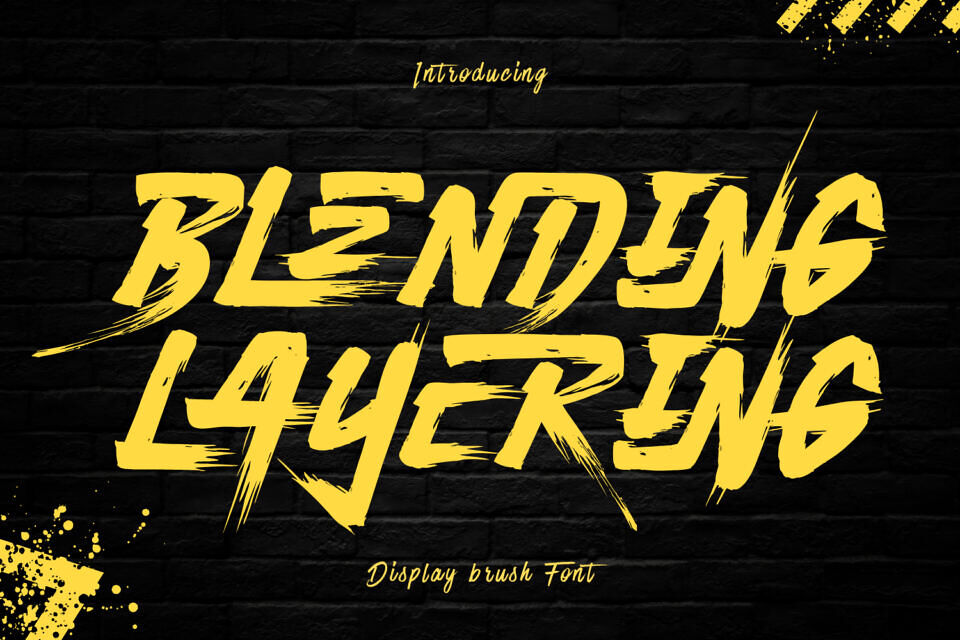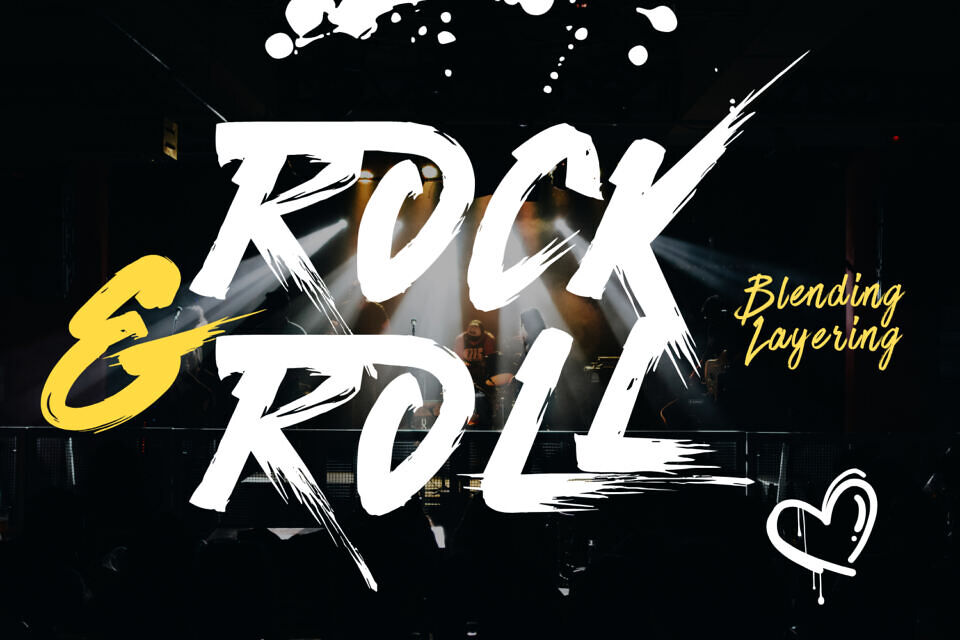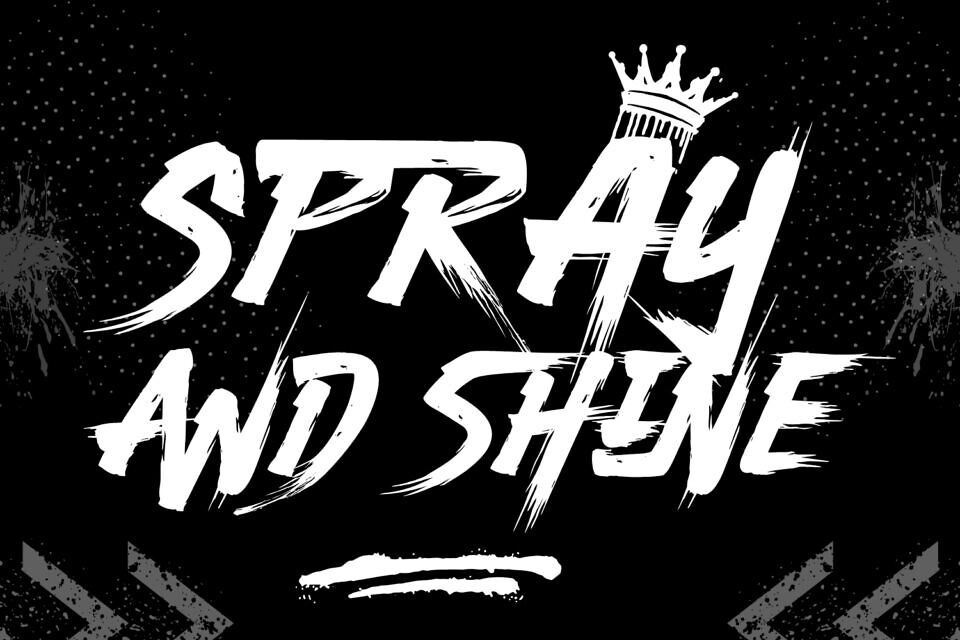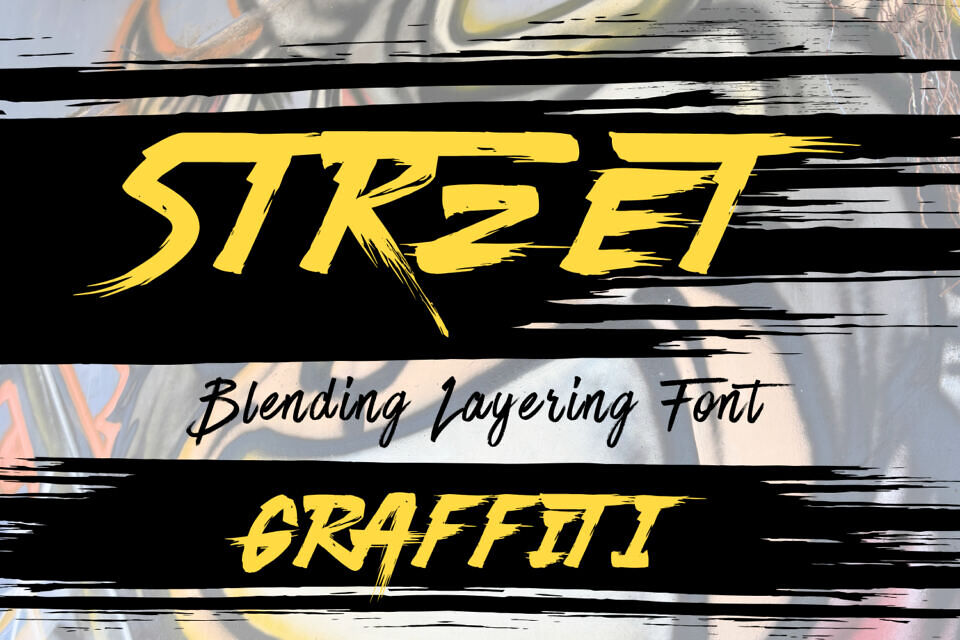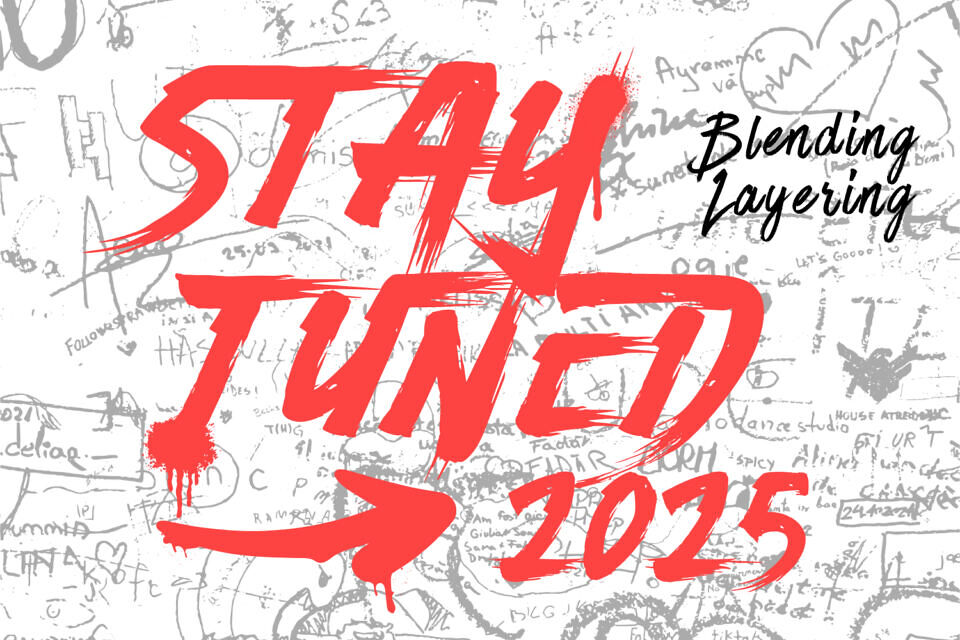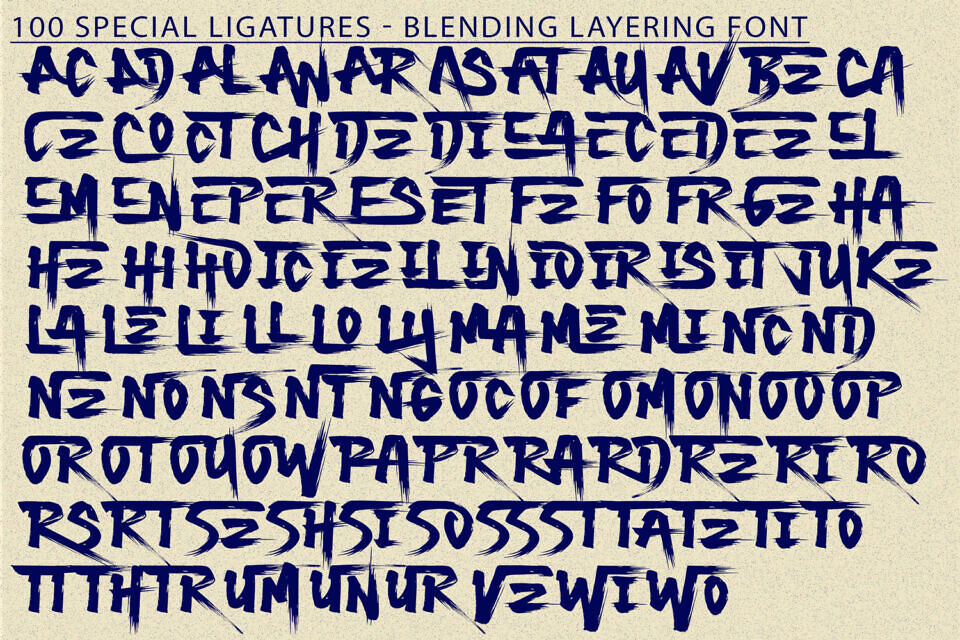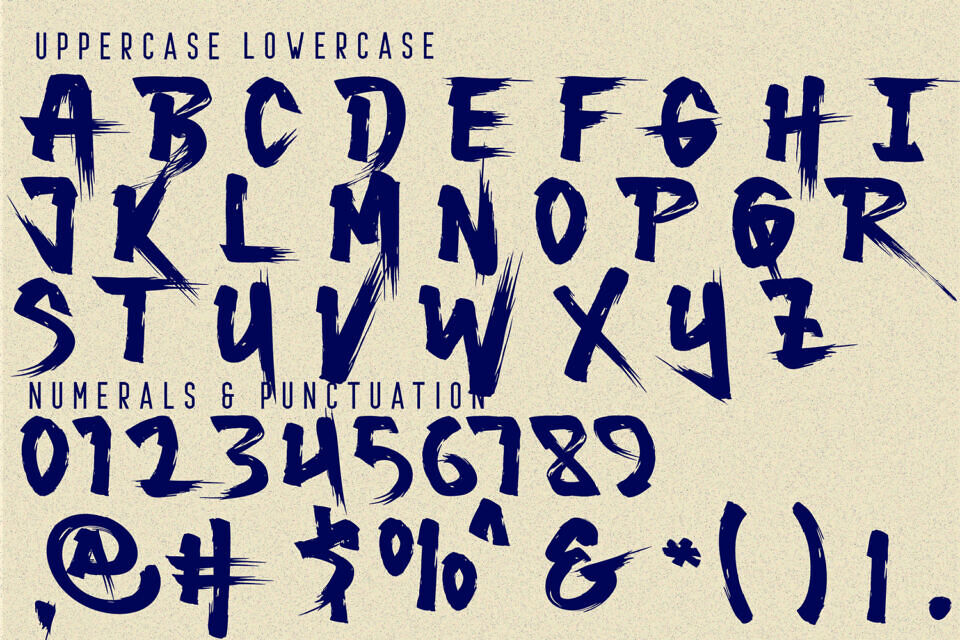
Blending Layering Font
Blending Layering is an energetic brush display font that explodes with motion and raw expression. Each stroke feels hand-painted, giving the font a bold street-art attitude that’s perfect for projects needing intensity and personality.
Its dynamic brush texture, combined with sharp edges and spontaneous movement, creates a feeling of speed and strength — ideal for poster headlines, music covers, sports branding, and urban design.